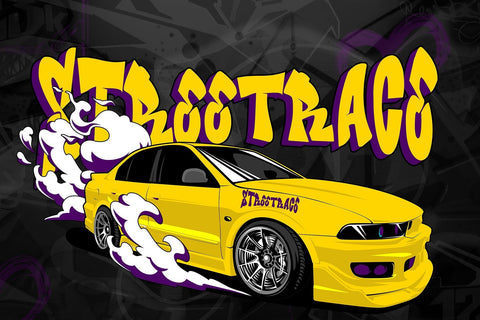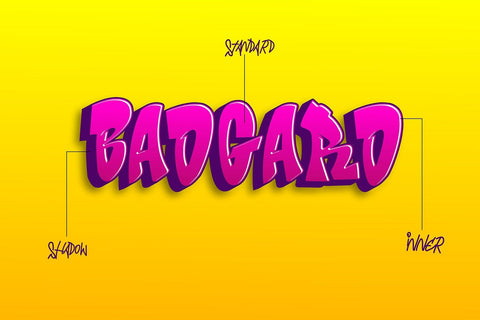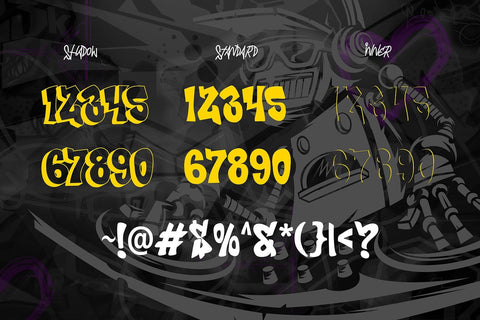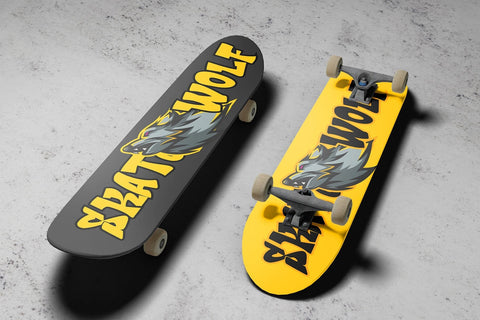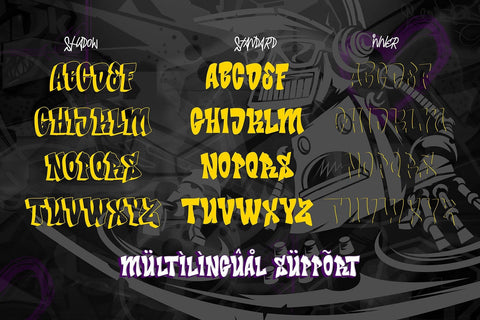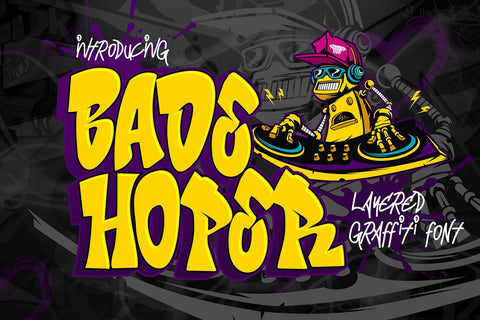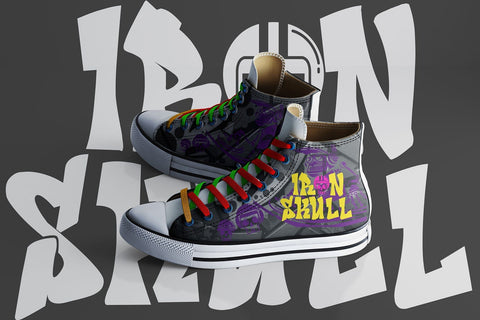
Bade Hoper - 3d Layered Graffiti Font
Bade Hoper is an urban graffiti font characterized by sharp edges and a bold look. Ideal for music posters, apparel designs, shirts, and streetwear, this font brings a touch of edginess to your projects. The unique style of "Bade Hoper" makes it the perfect choice for street style or urban graffiti themes. Whether you want to create a strong and powerful statement or simply add a touch of attitude to your designs, "Bade Hoper" is the font for you.
- Graffiti Characters looks